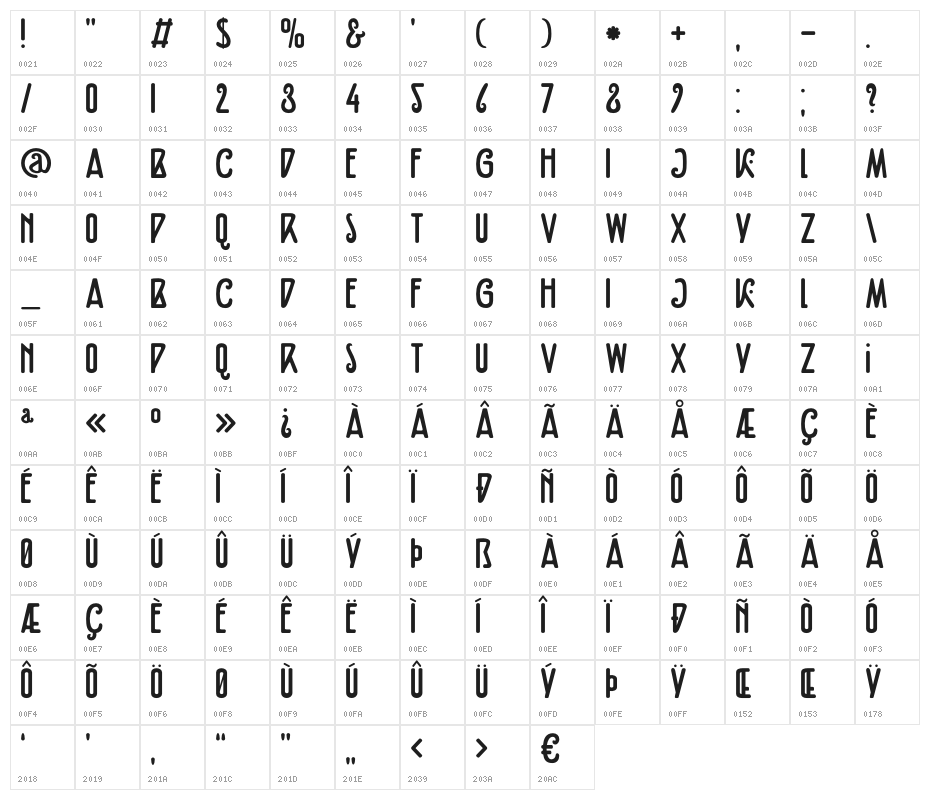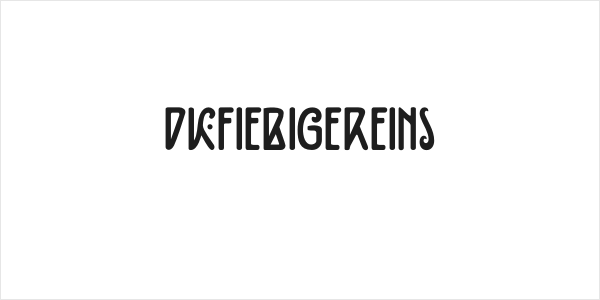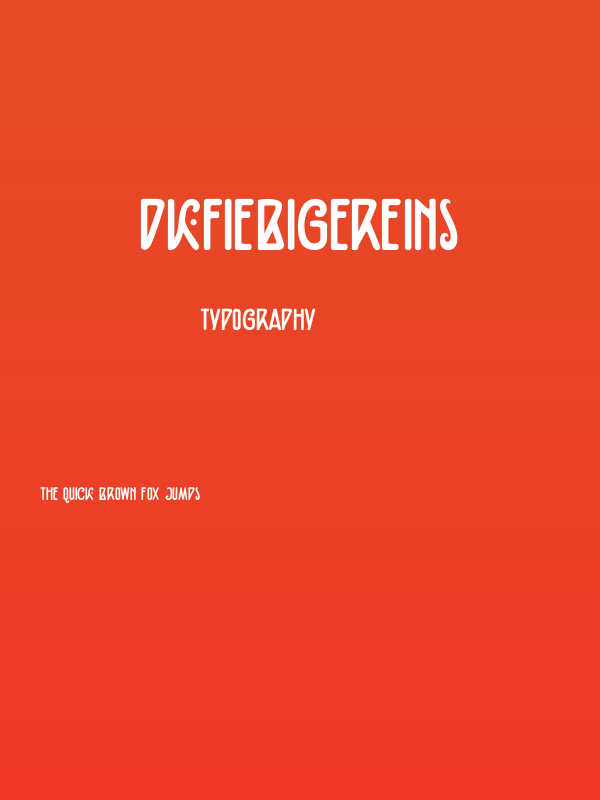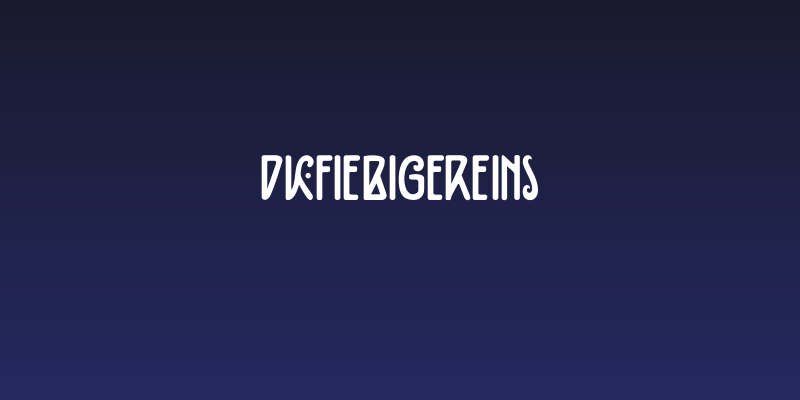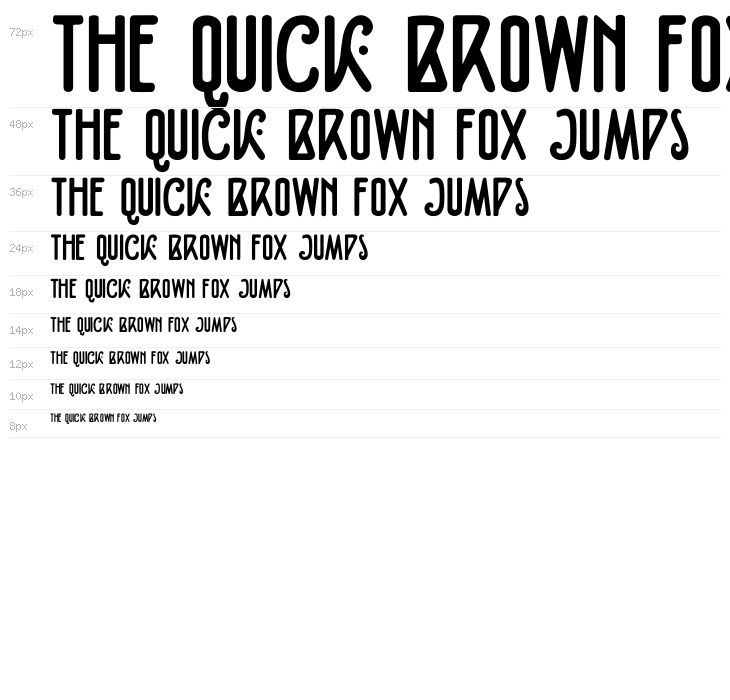
DKFiebigerEins Font
DKFiebigerEins Description
This font features a bold and playful design with a unique blend of geometric and organic shapes. The uppercase letters are characterized by their thick, rounded strokes and distinctive curves, creating a sense of movement and energy. The lowercase letters maintain the same playful style, with some characters exhibiting unexpected twists and turns. Numbers are equally bold and maintain the same stylistic elements, ensuring consistency across all characters. Special characters are creatively designed, adding to the font's overall whimsical and artistic appeal. This font is ideal for projects that require a fun and engaging visual impact.
| Overall Style | Playful, Artistic |
| Proposed Projects | Ideal for children's books, playful branding, posters, and creative digital content. |